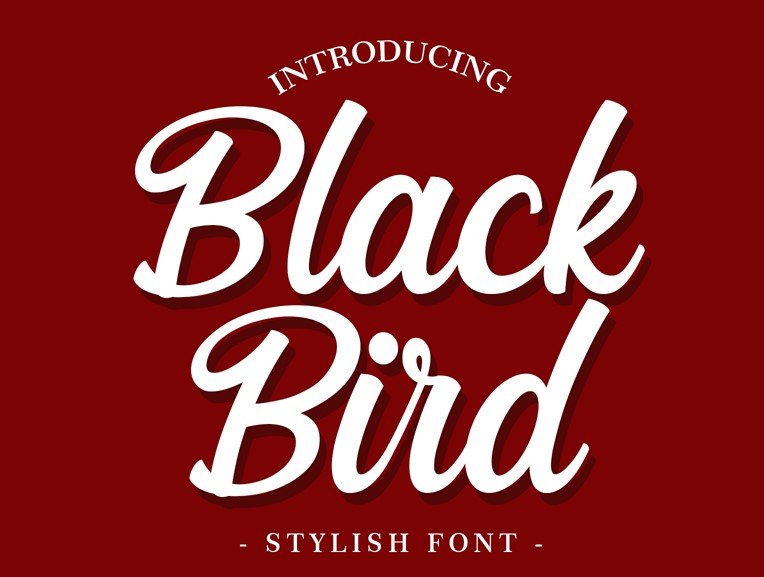
Introducing the Blackbird Font, a calligraphic typeface characterized by its old-style texture. This font was released by the Indonesian Foundry Kong Font in 2000.
In the making of this typeface texture, the author uses bold strokes so that they can easily maintain the irregular baseline of this typeface and it is the only feature that makes this typeface unique from the other typefaces like tahoma font. Every letter of this typeface has the different look.
- Posters, banners, and billboards
- Social media ads, banners, and graphics
- Museum exhibitions
- Retail store interiors
- Annual reports
- Signage
- Title sequences and end credits
- Websites
What Type of Font Is Blackbird?
. This is the calligraphic typeface that has the old-style texture. This typeface was introduced by the Indonesian Foundry Kong Font in 2000.
What's the Closest Font to Blackbird?
The Evangeline font is very close to the Blackbird font.